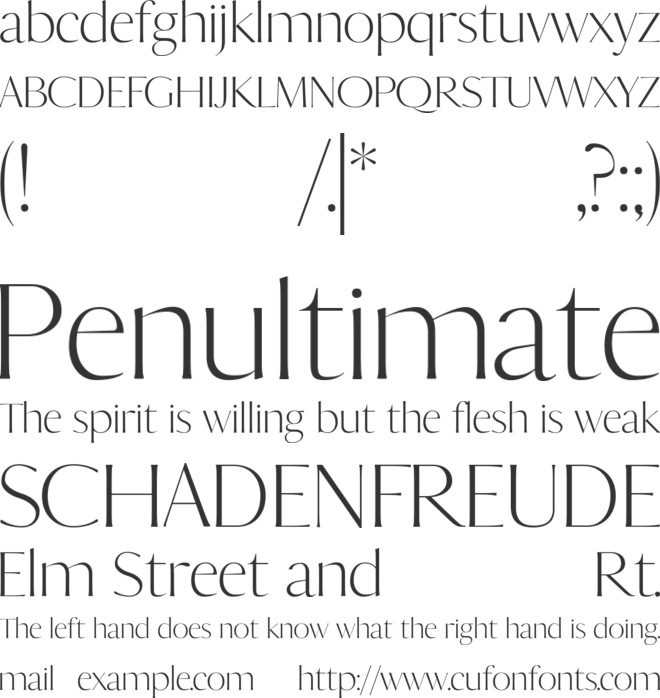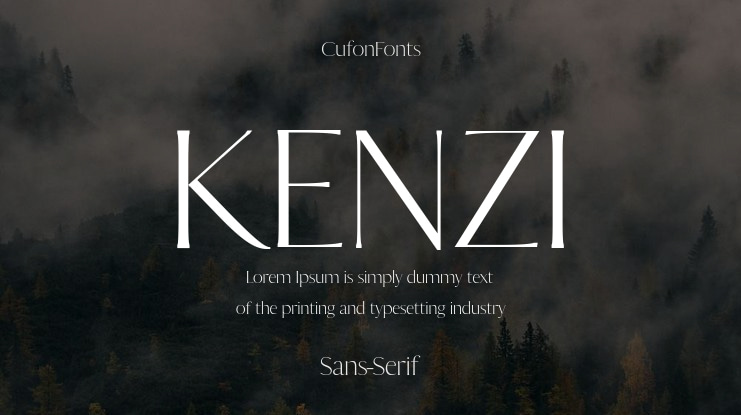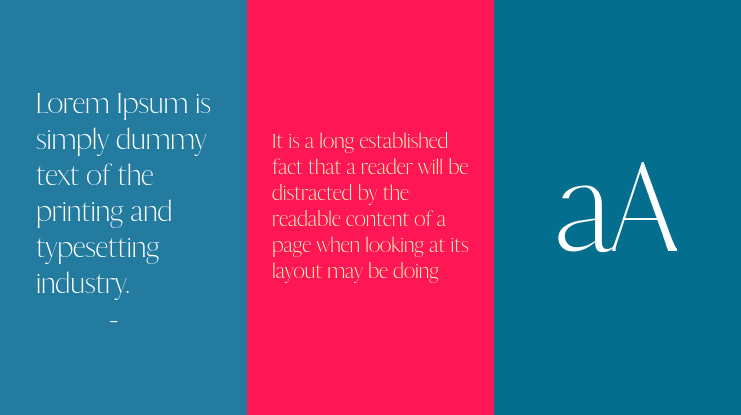
π¨ Font Name: KENZI by Minimalist Art Studio
π¨ Font Description: KENZI is a delicate sans serif with graceful simplicity and multilingual support, ideal for branding, lifestyle, and editorial design.
β Complete Latin set + multilingual diacritics
β Alternates, stylistic sets & ligatures
β Numbers, small caps, and extended punctuation
β Bonus italics and family styles